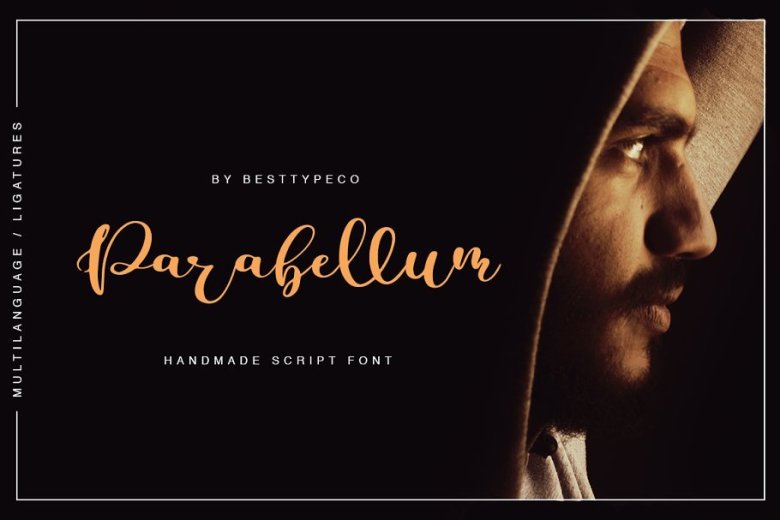
Parabellum Script Font
This is a model of modern calligraphy typefaces, in combination with a calligraphy writing style. For those of you who need an elegant and modern touch for your design, this font is made for you! Introducing Parabellum Font. Very suitable for greeting cards, branding materials, business cards, quotes, posters, and more! This font are perfect for wedding postcard. Or you can create perfect and unique design of your logo, blog, stationery, marketing, magazines and more ?